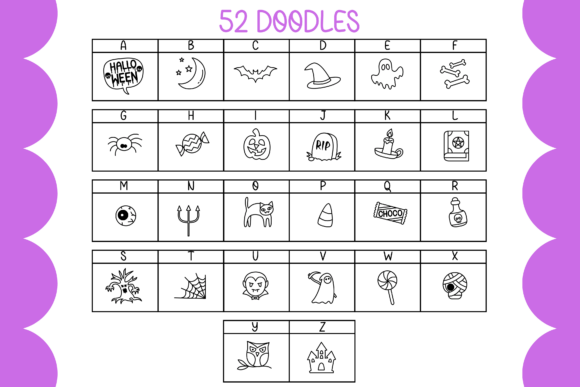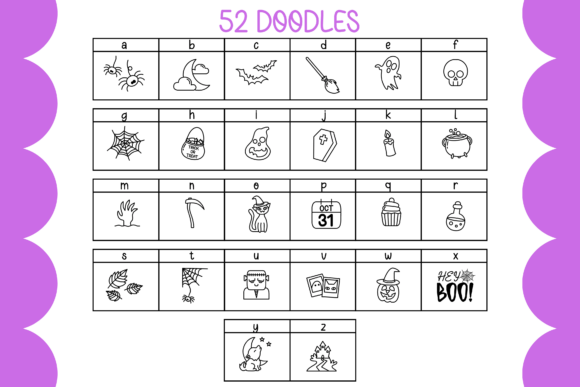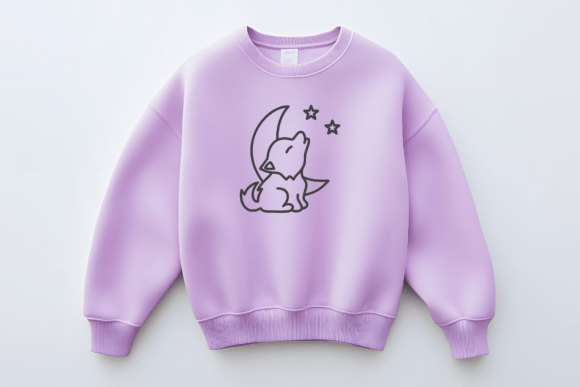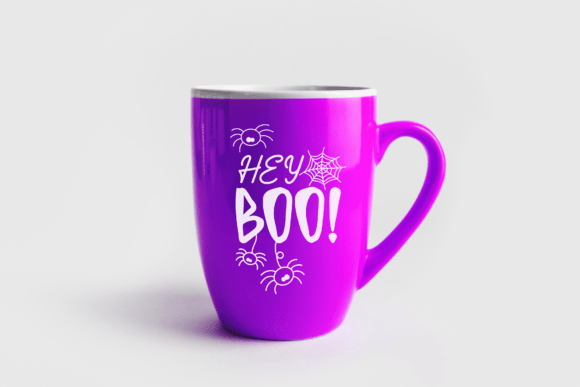
Introduction to Halloween Parade Font
Get ready to celebrate the spooky season with Halloween Parade, a fun and festive dingbat font packed with Halloween-themed icons.
From cute ghosts and pumpkins to creepy bats and witchesโ hats, this font brings your Halloween designs to life without using a single letter Perfect for party invites, decorations, crafts, scrapbooking, and social media posts, Halloween Parade adds a playful and eerie touch to all your seasonal projects.